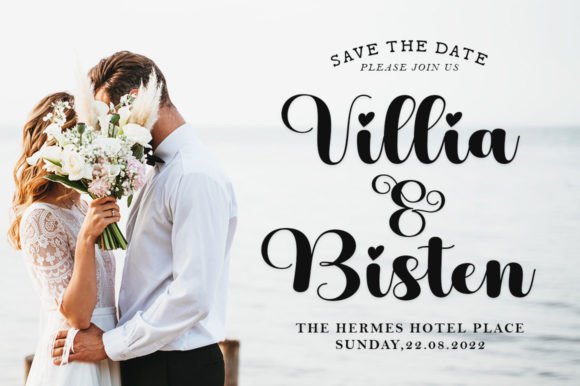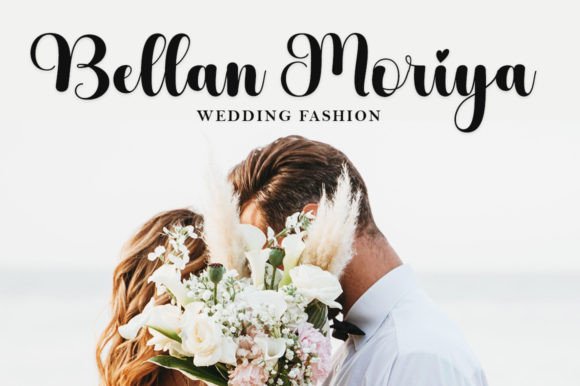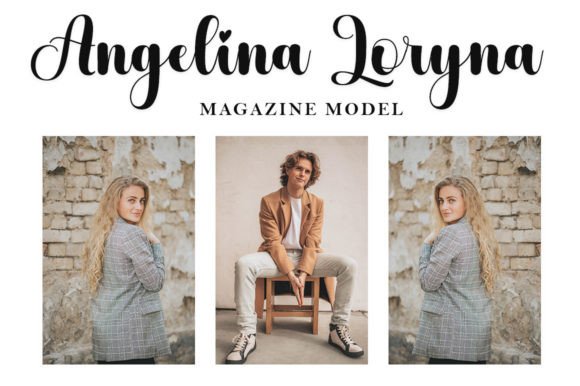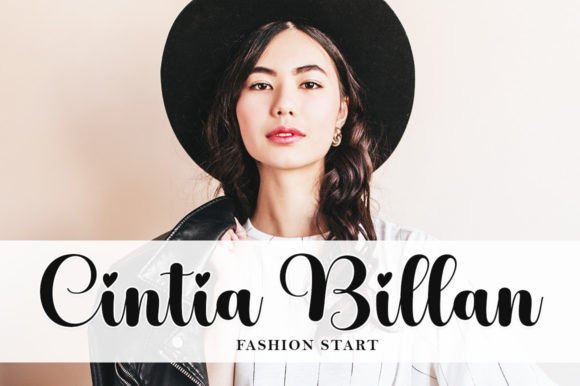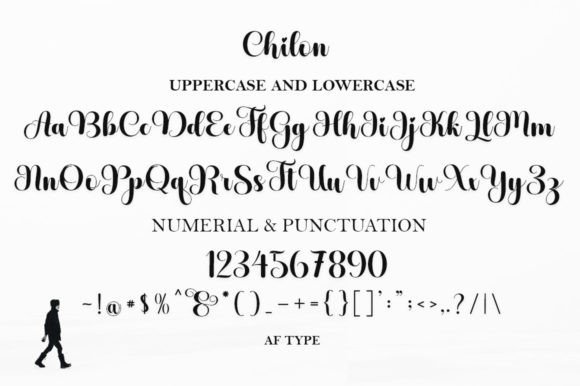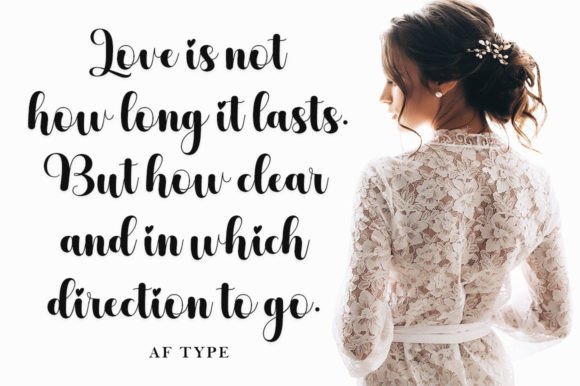
Chilon Font
“Chilon” is a sweet and beautiful handwritten font that brings a touch of luxury and elegance to your design projects. With characters that dance along the baseline, this font offers a unique and stylish aesthetic that sets it apart from standard fonts. Whether you’re working on branding, invitations, stationery, social media graphics, or any project that requires a touch of luxury, “Chilon” is a valuable addition to your font collection.
The font’s charm lies in its ability to convey a sense of sophistication and creativity. Its handwritten style exudes a timeless elegance, making it suitable for projects where you want to create a visually appealing and tasteful impression. “Chilon” allows you to infuse your designs with a touch of luxury and artistic flair.
By incorporating “Chilon” into your projects, you can elevate them with a sense of grace and refinement. The font’s unique baseline dancing characters add a level of visual interest that makes your designs stand out. Whether you’re designing for print or digital media, “Chilon” can enhance the visual appeal of your content.
In summary, “Chilon” is a valuable font that brings sophistication and luxury to your creative projects. Its elegant handwritten style, coupled with unique baseline dancing characters, allows for creative and visually engaging designs. With “Chilon” in your font collection, your designs will exude a sense of timeless elegance and creativity, leaving a lasting impression.